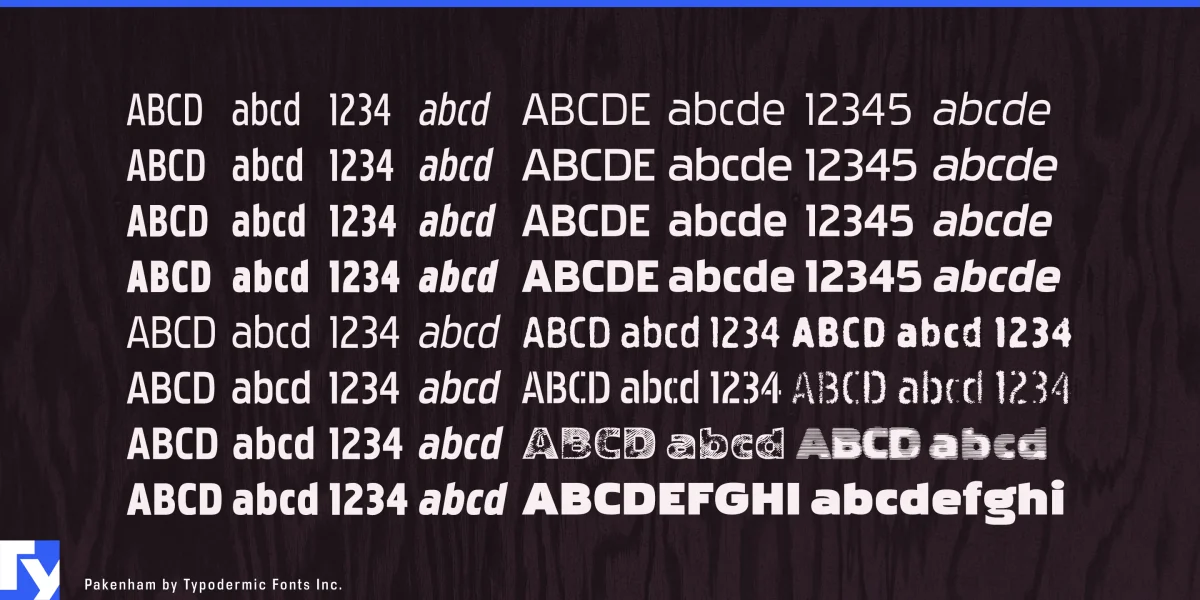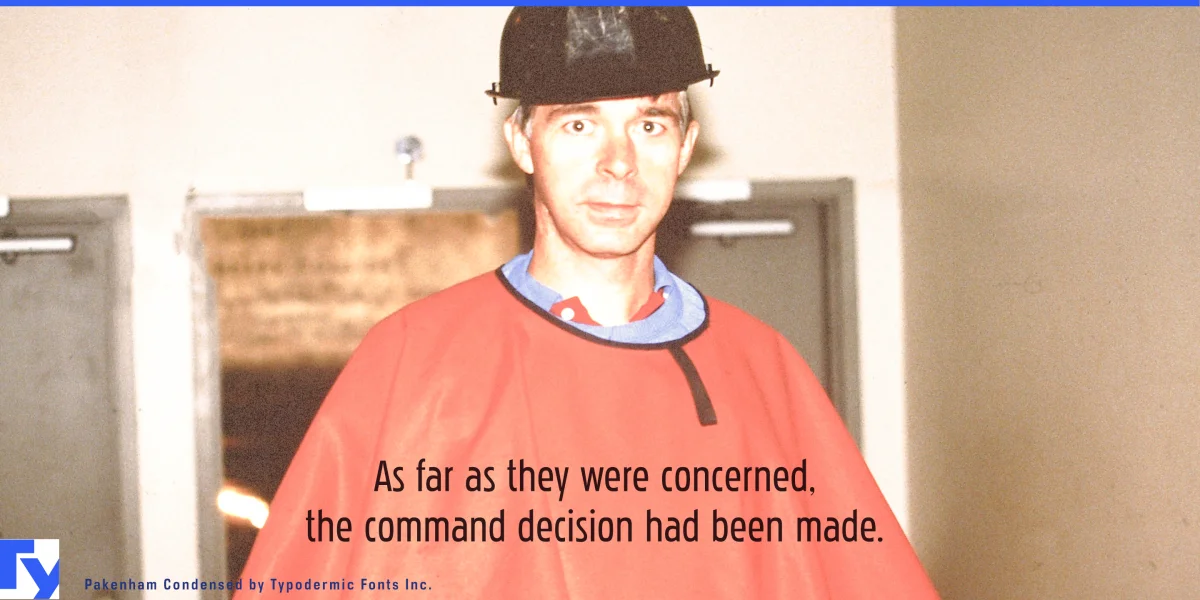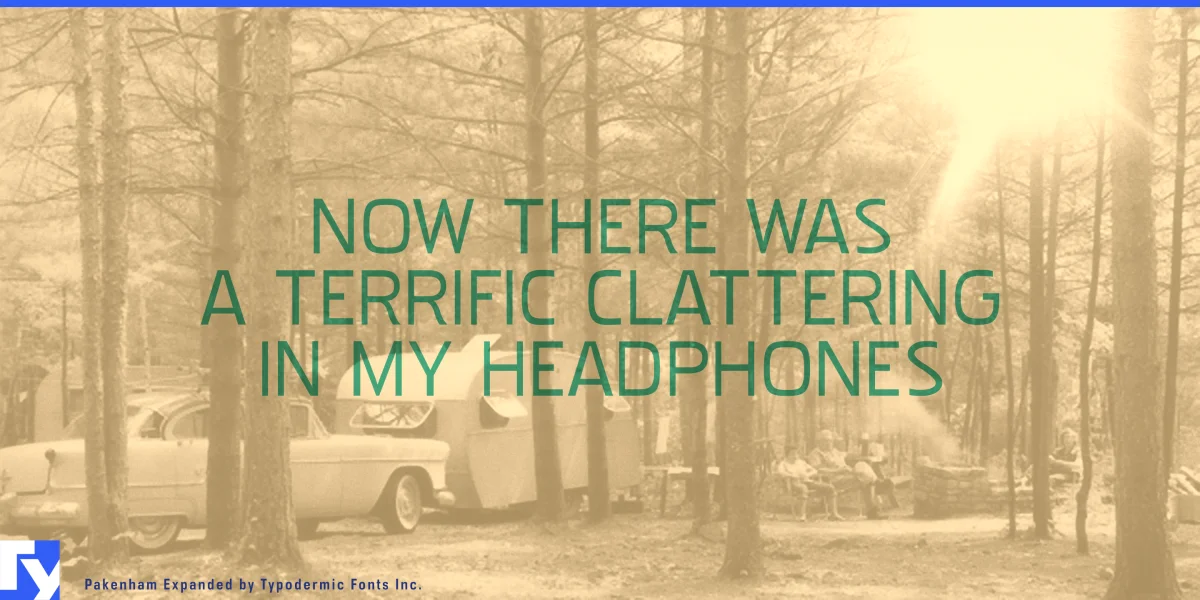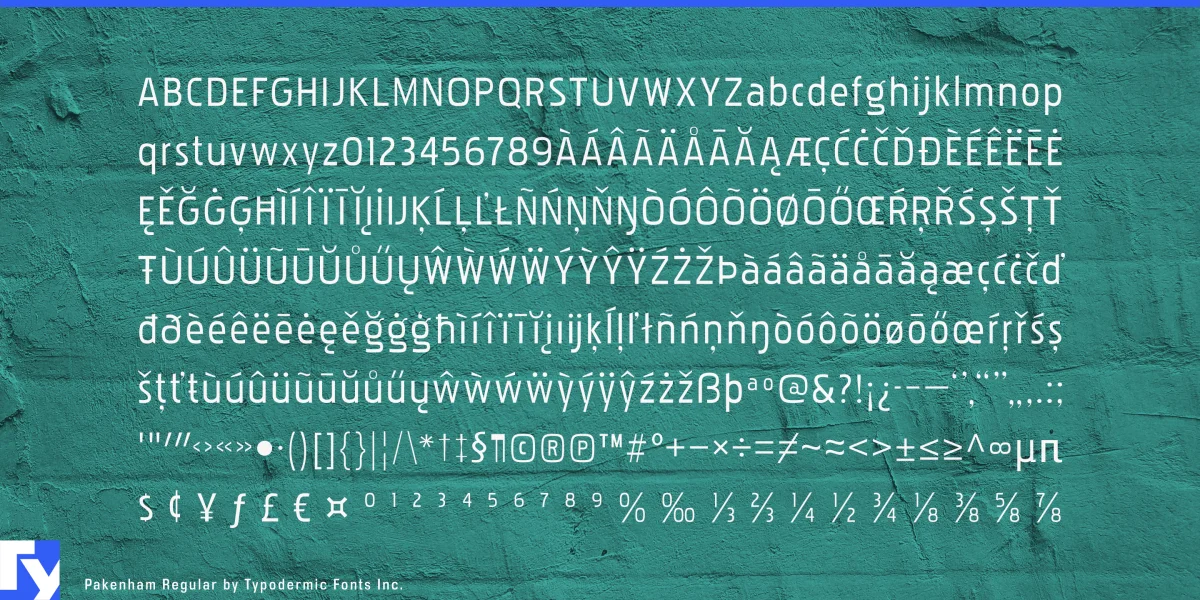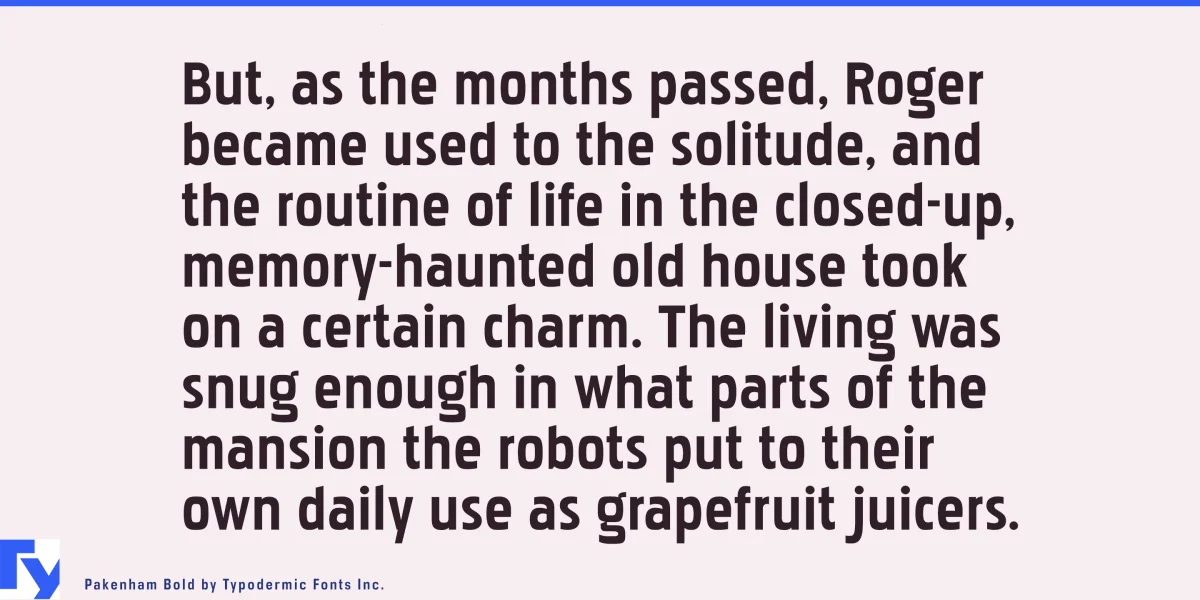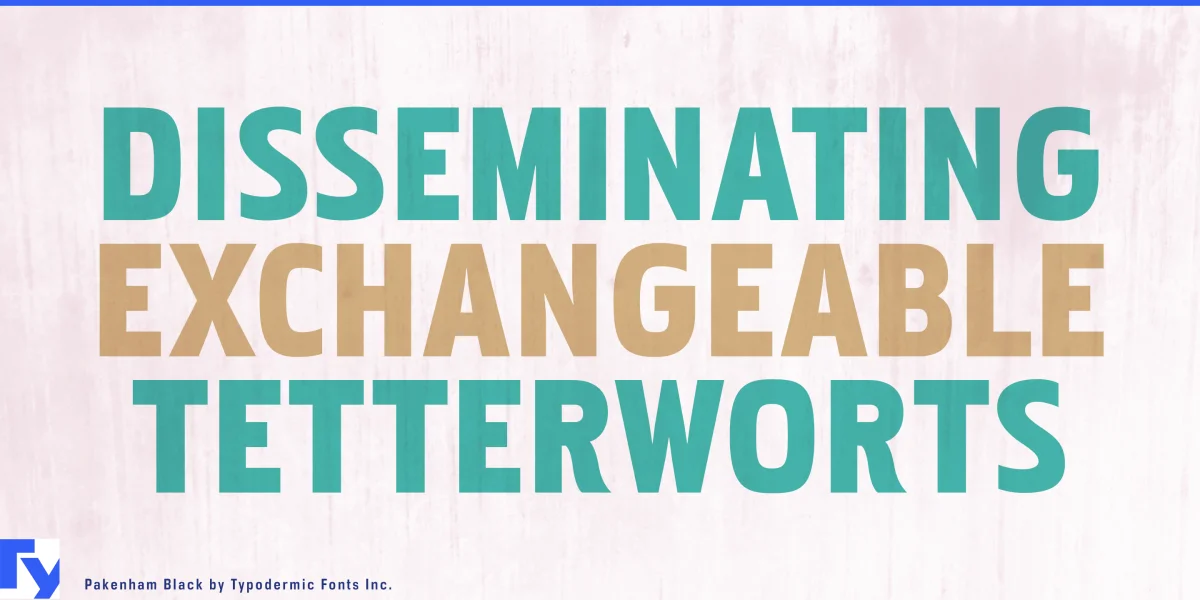
Pakenham was influenced by Paul Renner’s Steile Futura from the 1950s. With gently curved corners and generously scaled loops, this sans-serif typeface has an upright, modern appearance. Its oddities and anomalies will add a home-spun, personal touch to your creations. There are four weights, two widths, italics, and special effect styles: 32 in total. Most Latin-based European writing systems are supported, including the following languages. Afaan Oromo, Afar, Afrikaans, Albanian, Alsatian, Aromanian, Aymara, Bashkir (Latin), Basque, Belarusian (Latin), Bemba, Bikol, Bosnian, Breton, Cape Verdean, Creole, Catalan, Cebuano, Chamorro, Chavacano, Chichewa, Crimean Tatar (Latin), Croatian, Czech, Danish, Dawan, Dholuo, Dutch, English, Estonian, Faroese, Fijian, Filipino, Finnish, French, Frisian, Friulian, Gagauz (Latin), Galician, Ganda, Genoese, German, Greenlandic, Guadeloupean Creole, Haitian Creole, Hawaiian, Hiligaynon, Hungarian, Icelandic, Ilocano, Indonesian, Irish, Italian, Jamaican, Kaqchikel, Karakalpak (Latin), Kashubian, Kikongo, Kinyarwanda, Kirundi, Kurdish (Latin), Latvian, Lithuanian, Lombard, Low Saxon, Luxembourgish, Maasai, Makhuwa, Malay, Maltese, Māori, Moldovan, Montenegrin, Ndebele, Neapolitan, Norwegian, Novial, Occitan, Ossetian (Latin), Papiamento, Piedmontese, Polish, Portuguese, Quechua, Rarotongan, Romanian, Romansh, Sami, Sango, Saramaccan, Sardinian, Scottish Gaelic, Serbian (Latin), Shona, Sicilian, Silesian, Slovak, Slovenian, Somali, Sorbian, Sotho, Spanish, Swahili, Swazi, Swedish, Tagalog, Tahitian, Tetum, Tongan, Tshiluba, Tsonga, Tswana, Tumbuka, Turkish, Turkmen (Latin), Tuvaluan, Uzbek (Latin), Venetian, Vepsian, Võro, Walloon, Waray-Waray, Wayuu, Welsh, Wolof, Xhosa, Yapese, Zapotec Zulu and Zuni.